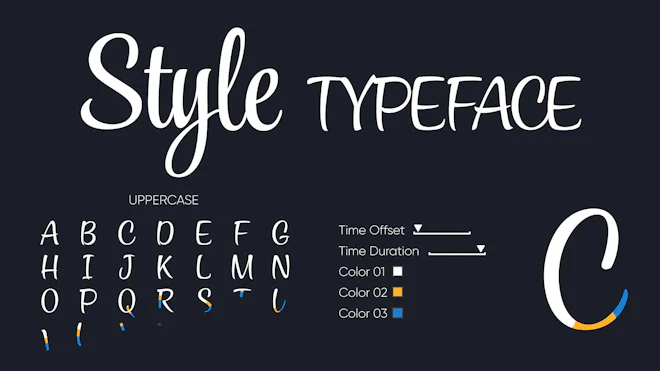
Style - Animated Typeface that can be used in several video projects like wedding shoots, Christmas Greetings, Holidays, New Year Wishes, Invitations, Greeting Cards, Vlogs, romantic Openers, Intros and many more. 4K resolution, Universal Expression, You can easily change time duration and change time offset of piece colors, Can be disable 3 or 2 color style, all transform controllers included, also all mogrt files have preview for look what inside animations in Essential Graphics Panel.